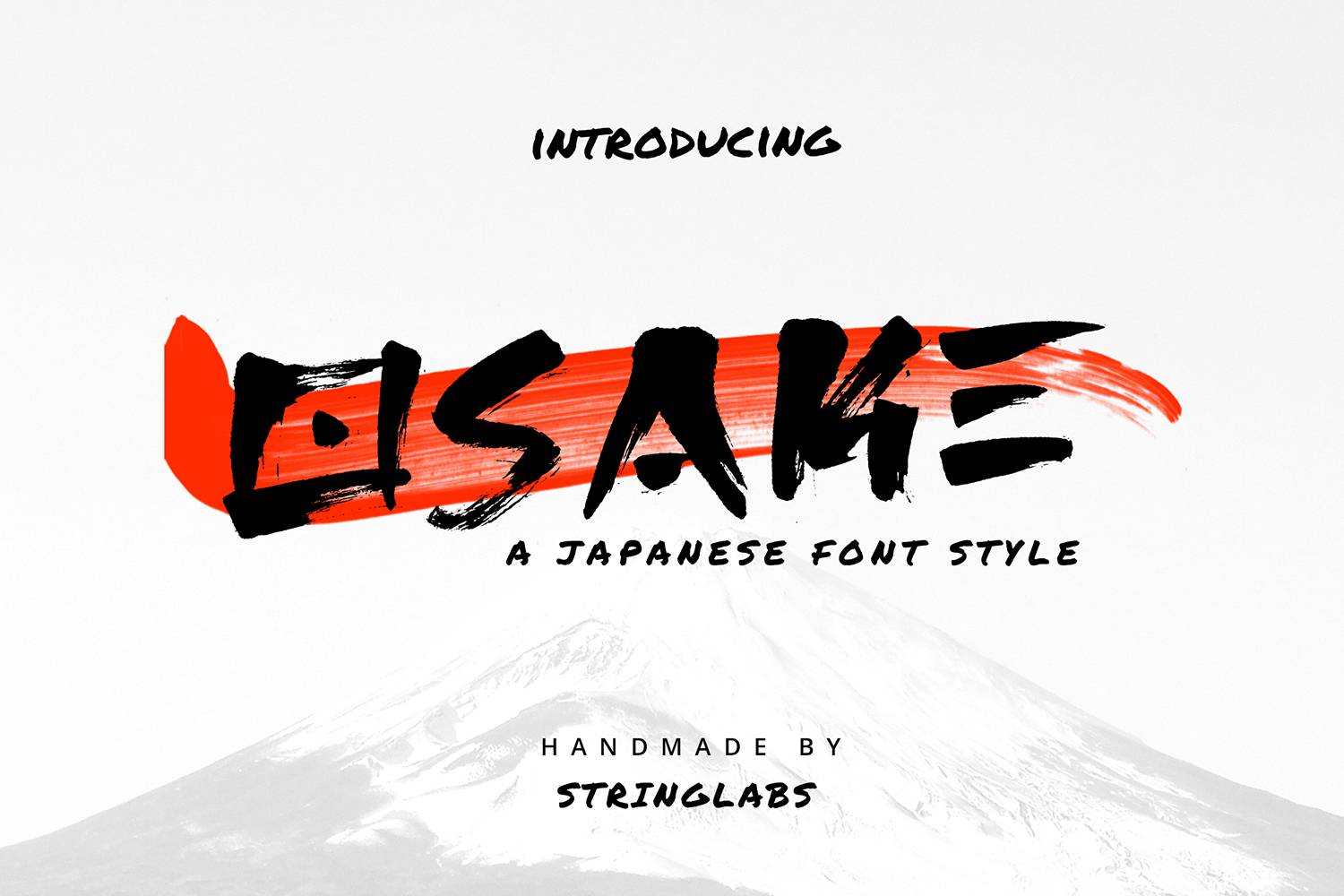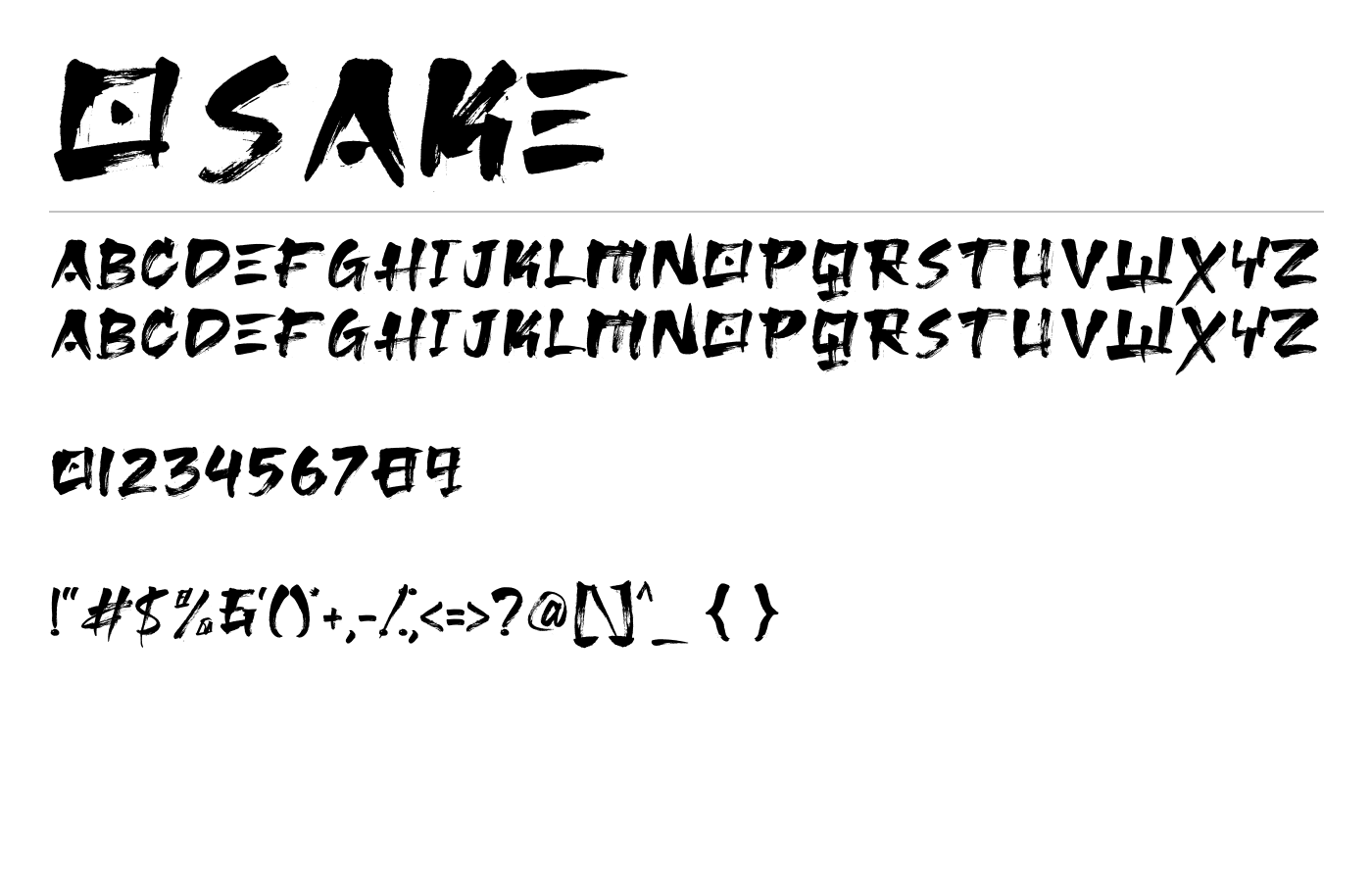
Osake is a bold, expressive brush-style font with a raw, hand-painted texture that brings an energetic and artistic vibe. Its uppercase letters and distinct rough strokes make it perfect for creative branding, posters, and headlines where a dynamic, edgy feel is desired. This font works well for projects seeking a bold, unconventional look that stands out with a handcrafted touch.
Osake Font
About Osake Font
| Font family | Osake Font |
| Designer | Stringlabs |